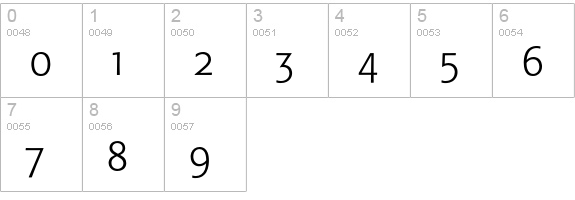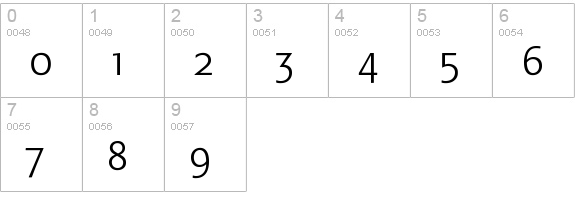
Formata Expert BQ Light Font Details
Formata Expert BQ Light is a refined, elegant variant in the Formata typeface family \xE2\x80\x94 well suited to elegant body text, refined sub-headings, and luxury branding.
Formata Expert BQ Light font is a sleek and modern typeface that exudes elegance and professionalism. Its clean lines and balanced proportions make it perfect for a wide range of design projects, from branding to editorial layouts. The light weight of the font gives it a delicate and sophisticated appearance, making it ideal for conveying a sense of refinement and sophistication. What sets Formata Expert BQ Light font apart is that it is freely available to download at FontsMarket.com. This means that you can easily access this high-quality typeface without any cost, making it a valuable addition to your font library. Whether you are working on a personal project or a client's design, Formata Expert BQ Light font will elevate your work with its timeless beauty and versatility.